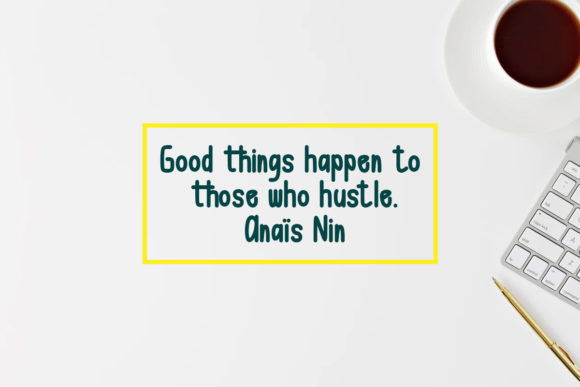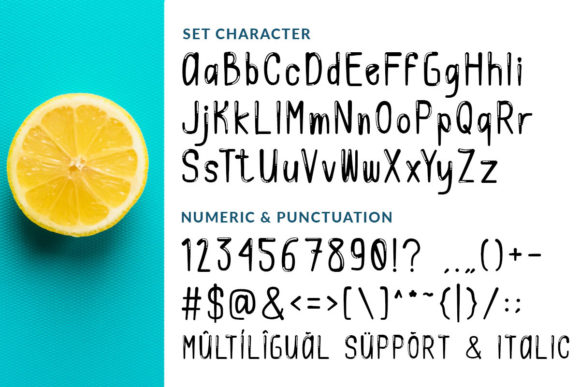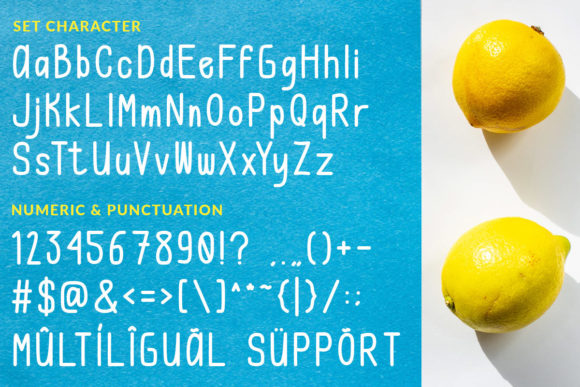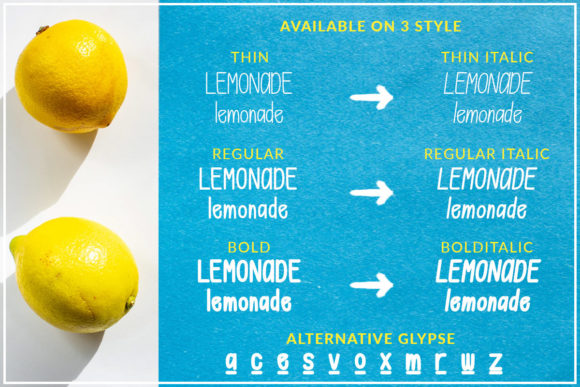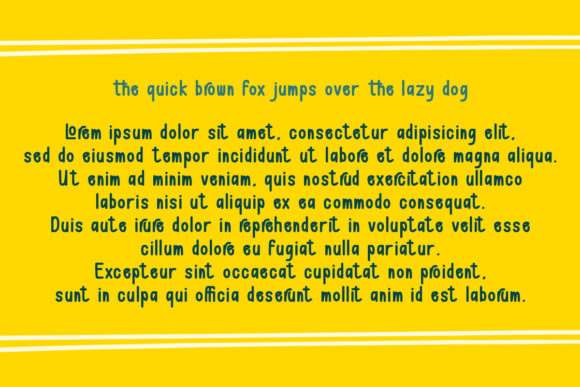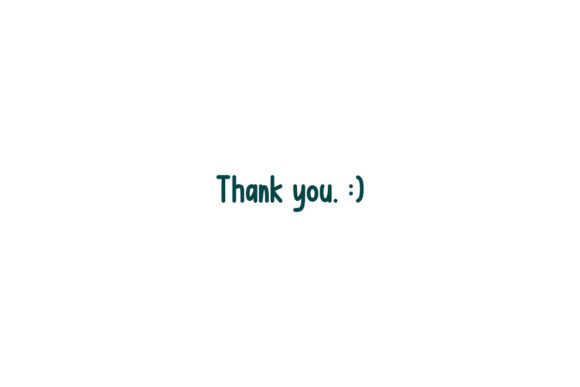
Introduction to Lemonade & Toon Font
Lemonade & Toon is a simple and thin lettered handwritten font.
No matter the topic, this font will be an incredibly asset to your fontsโ library, as it has the potential to elevate any creation .
Key Features of Lemonade & Toon Font
Why Choose Lemonade & Toon Font?
Lemonade & Toon Font offers exceptional quality and versatility, making it a valuable addition to your design toolkit. Whether you’re creating for personal projects or commercial use, Lemonade & Toon Font delivers professional results.